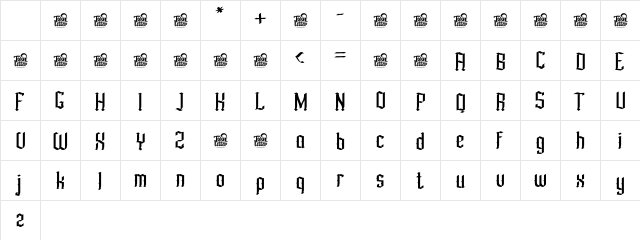
Complete BHURON Regular glyph index. Displaying only characters natively supported by BHURON Regular font.
BHURON is a composed and adaptable typeface that performs quietly and consistently across a wide range of design contexts.